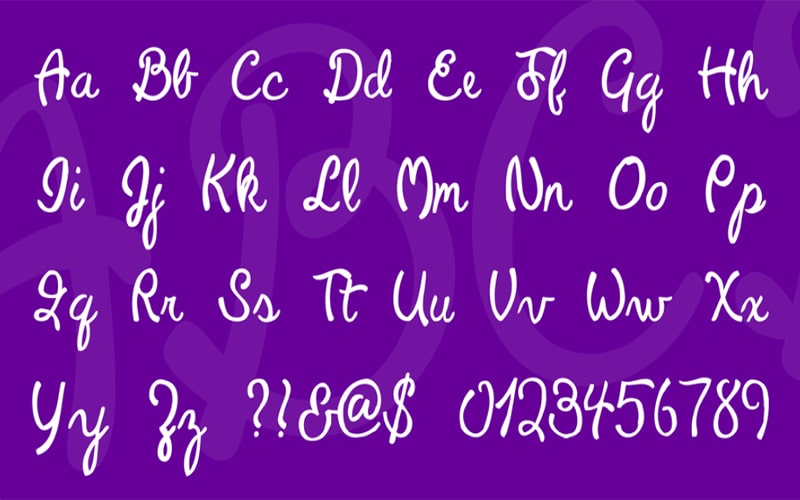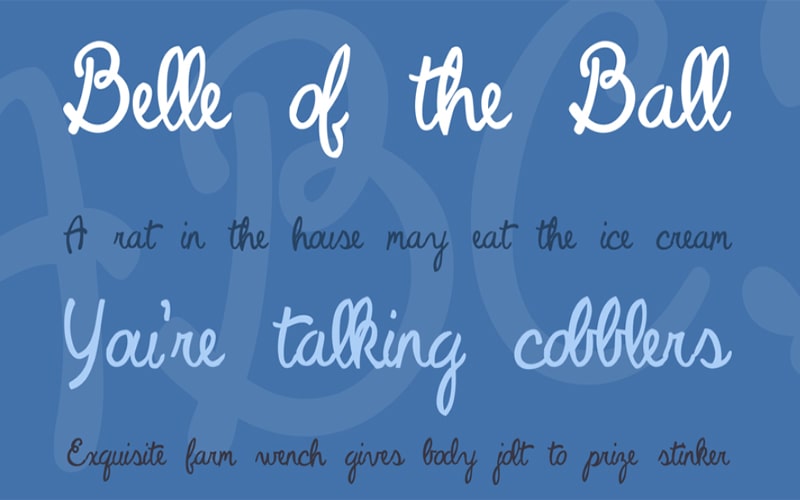
Peterbuilt font is stylish Handwritten, Script typeface. As this font looks charming and attractive because of its texture which has extremely stylish, joining, bold, and small letters.
Kevin Richey is known as the primary designer of this unique peterbuilt font. He is a budding self-taught font designer and has created 29 free fonts for individual or user needs and solace.
The subfamily of peterbuilt font is regular. This dazzling and elegant font contains 1 regular style such as the “Peterbuilt Regular” font style. This single-weight font makes it well-known all over the world.
This magnificent and incredulous free version font has 94 characters which are available in all lowercase and uppercase letters. Also all caps and some special characters as well.
| Style: | Handwritten, Script, Typeface |
It is thoroughly suitable for different stylish objectives, product designs, book covers, printing on cards, product packaging, cartoon posters, manga series, and noticeably more.